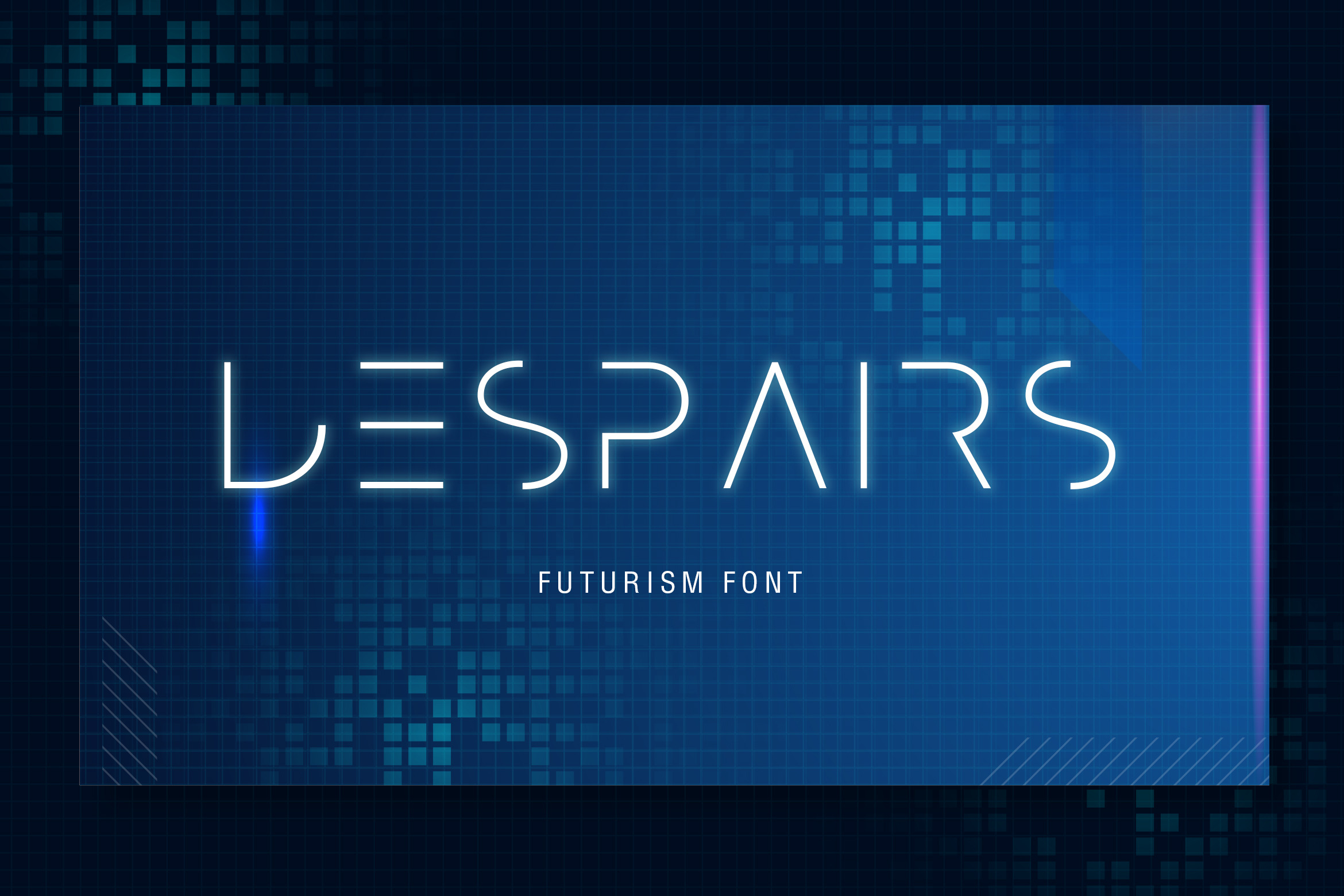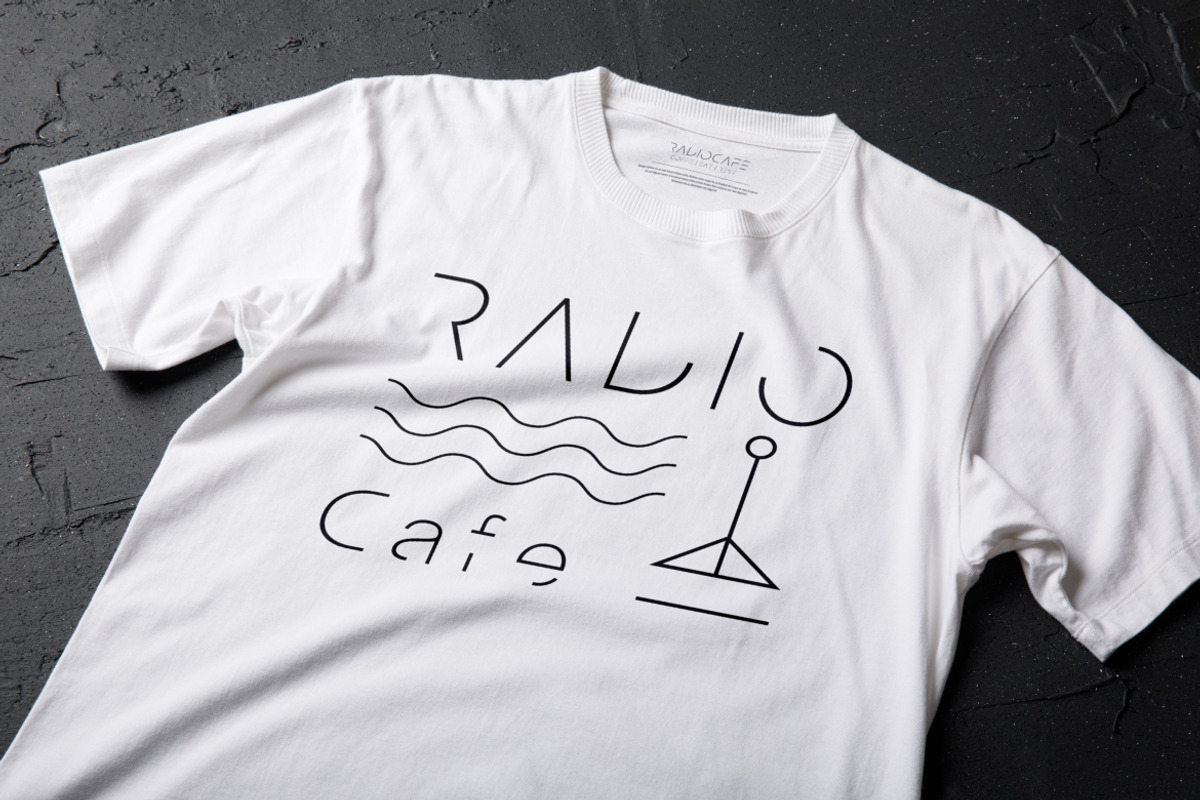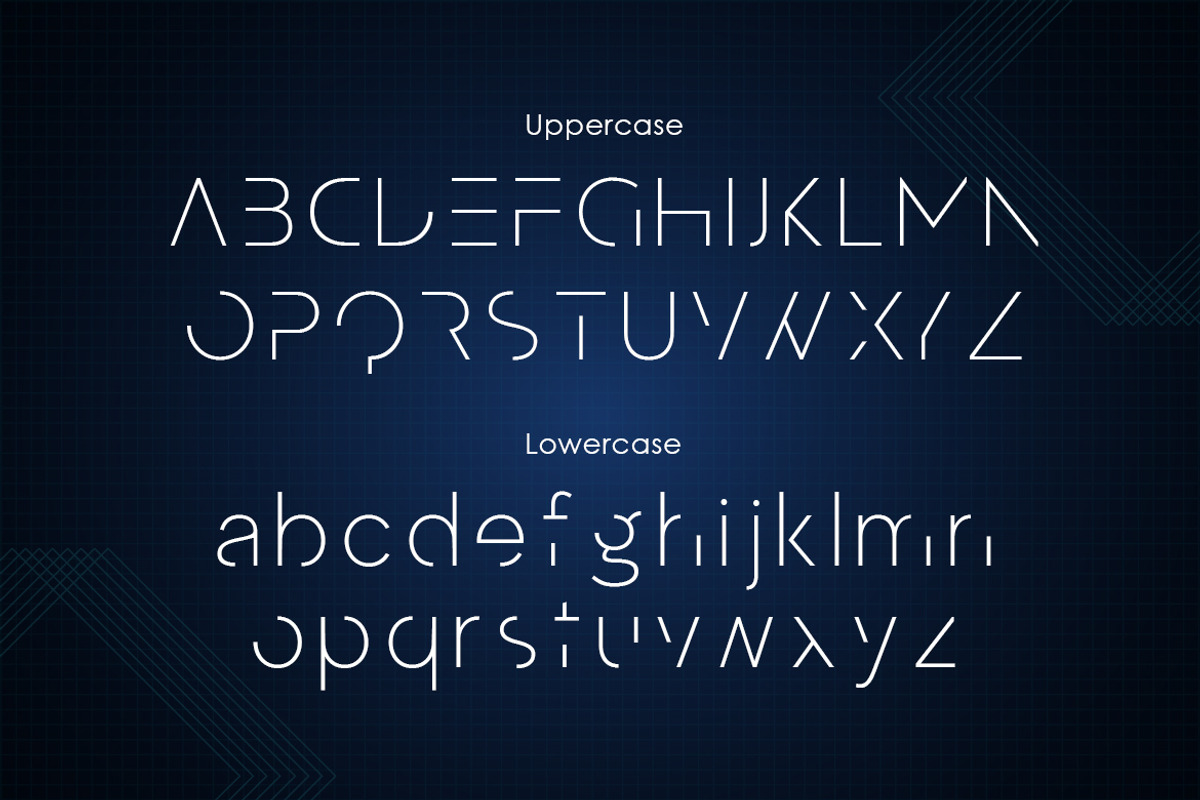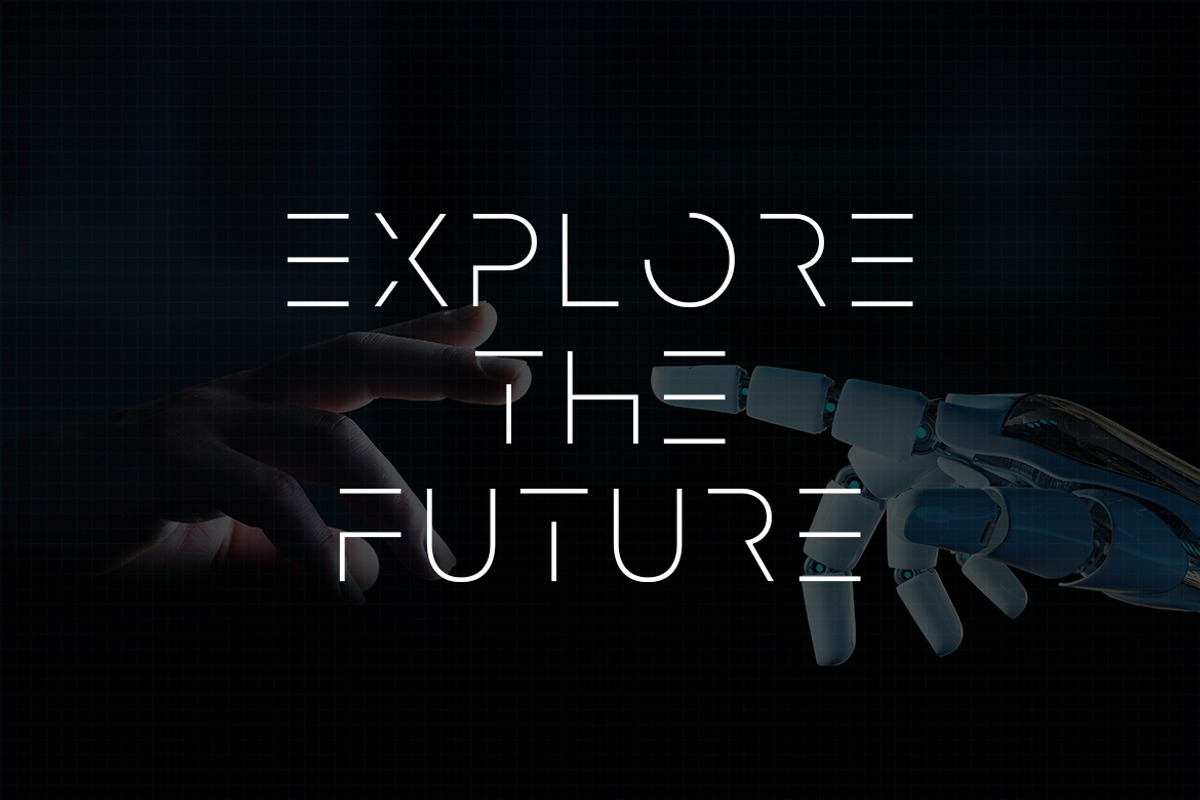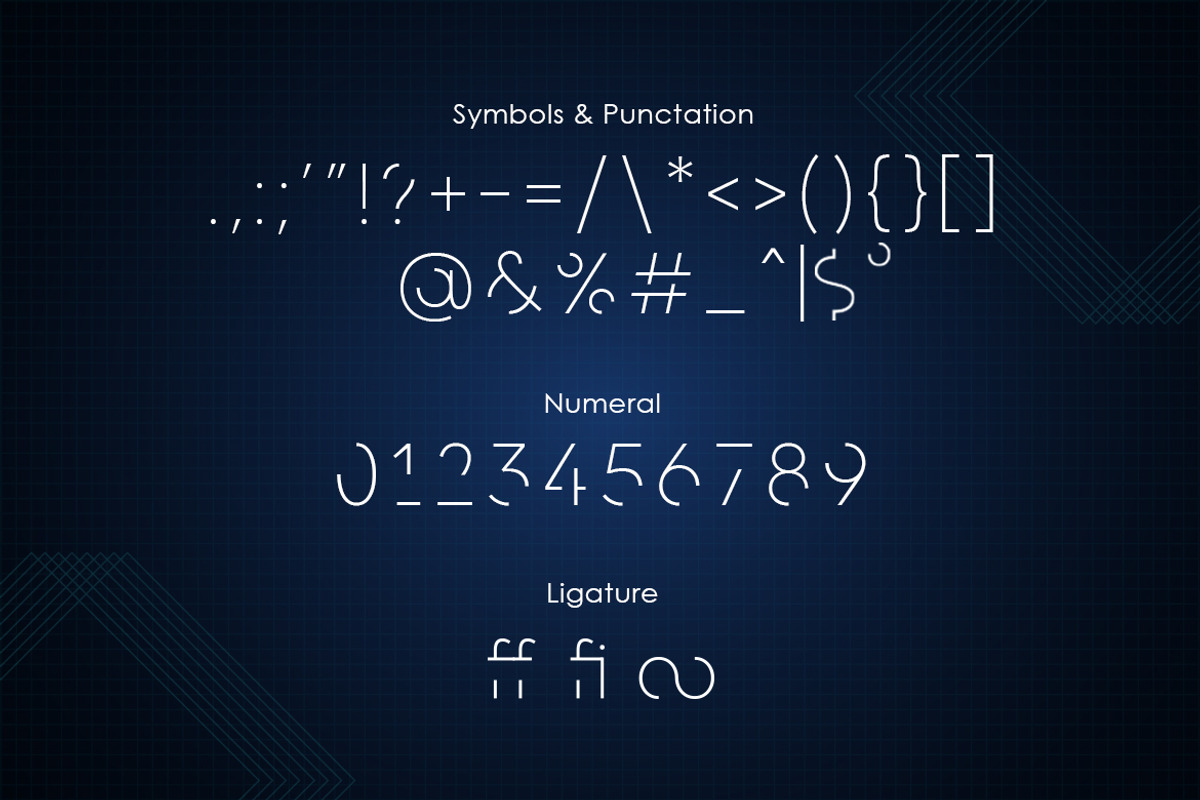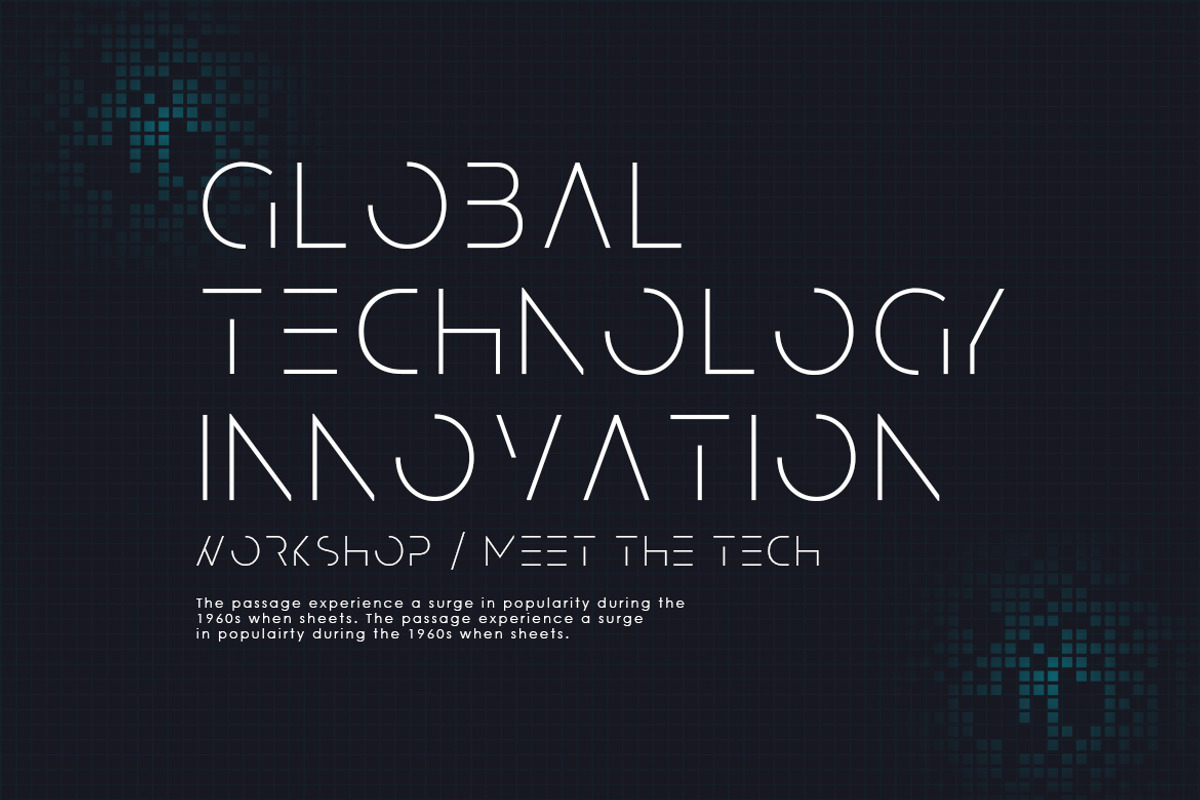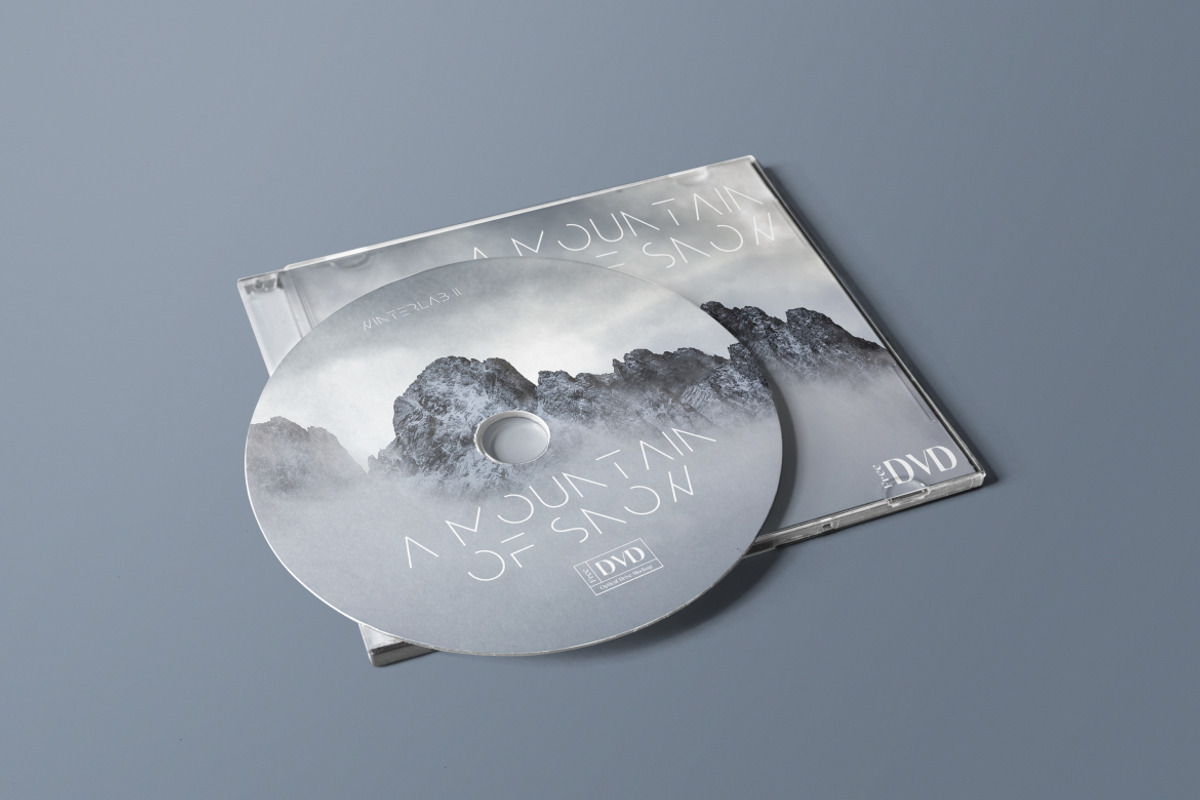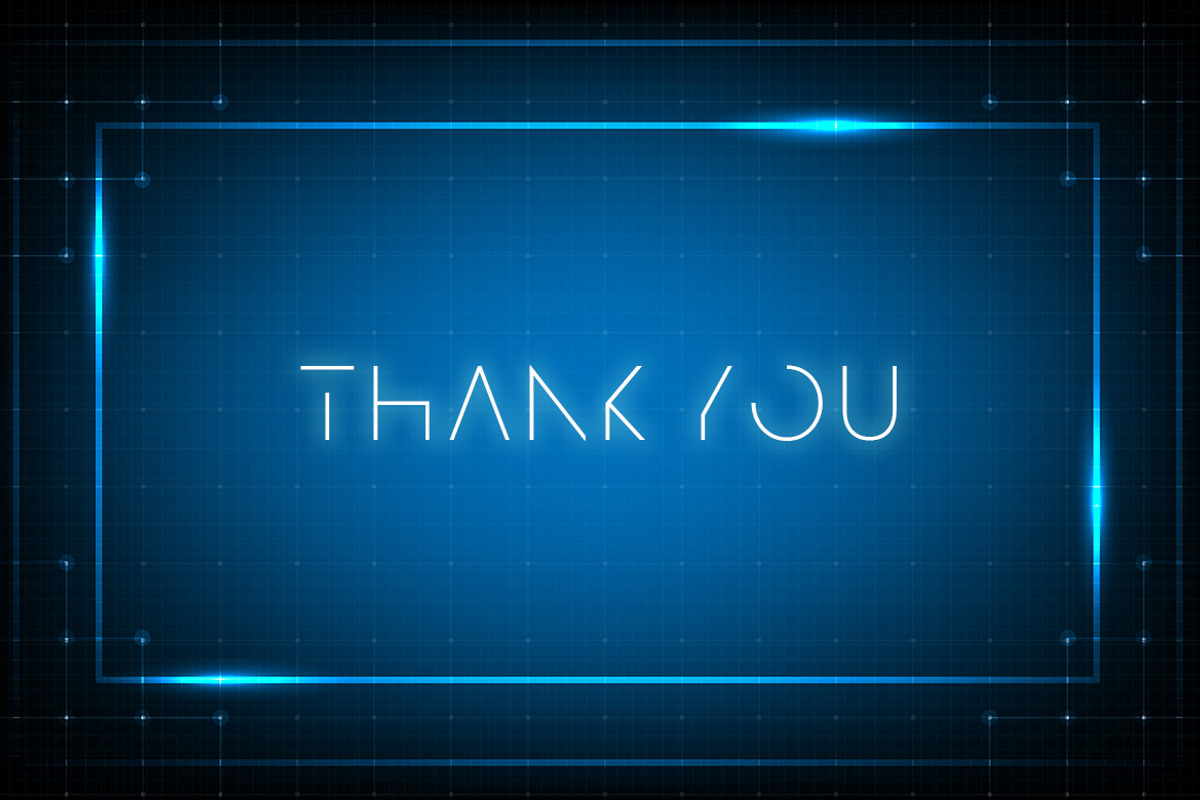
Despairs - Futurism Font
Despairs – is A modern minimalist futuristic font. A font with a futuristic edge, geometric corners, perfect for technology, digital, modern futuristic theme. Perfect for logo, poster, game, headlines, title and many more projects